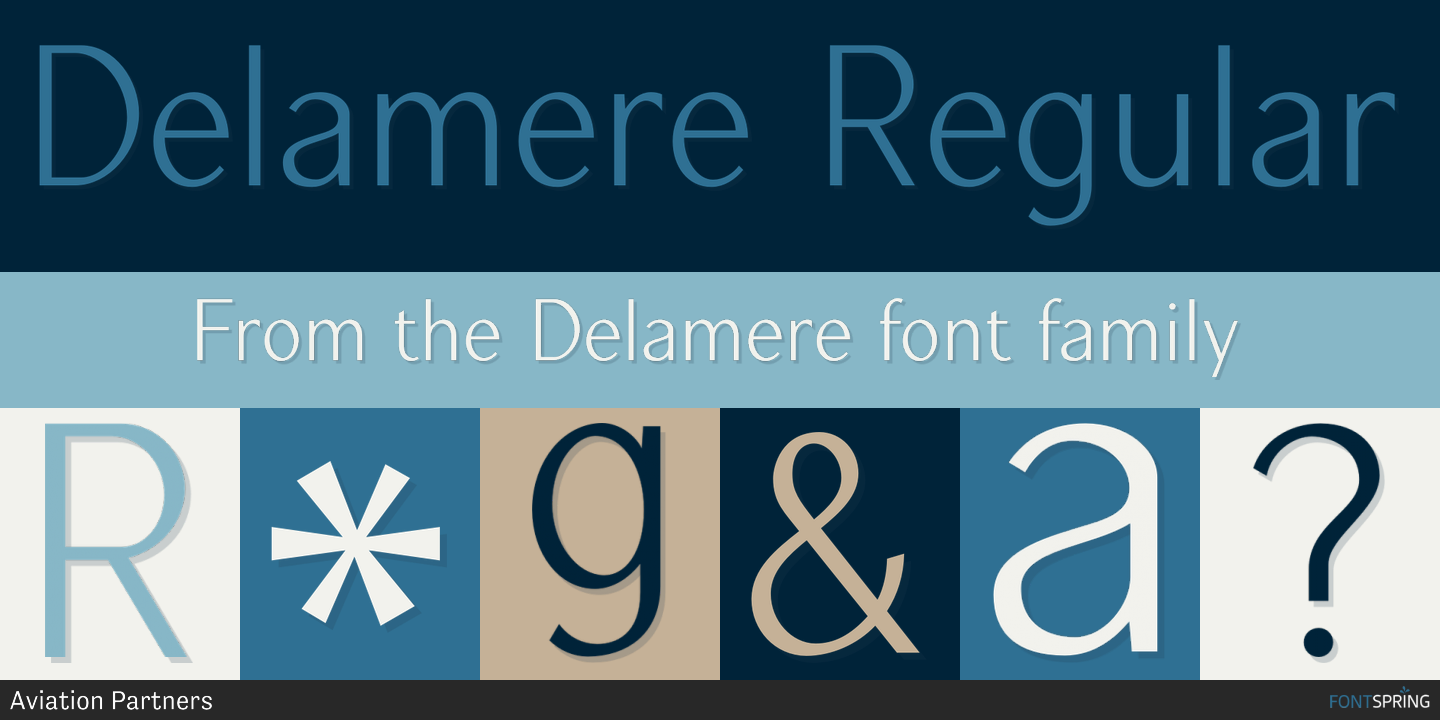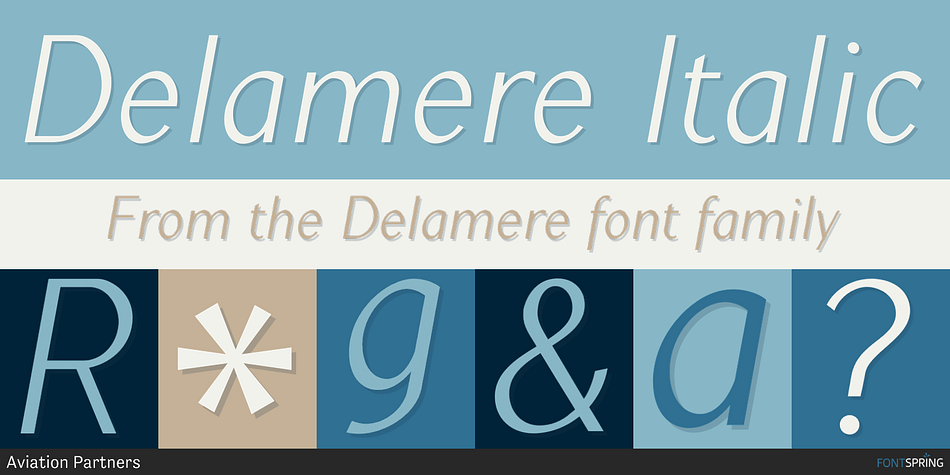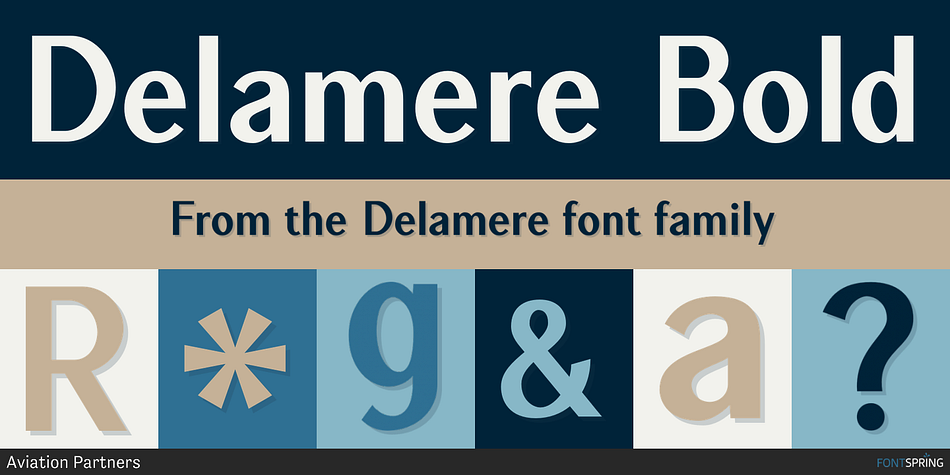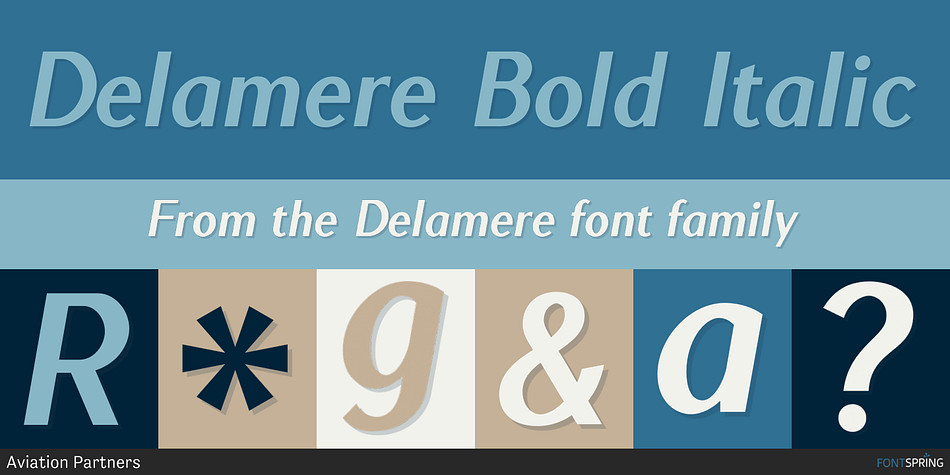
Delamere is a sans serif font family. This typeface has four styles and was published by Aviation Partners.
Delamere uses conventional sans-serif letterforms but delivered with a strong calligraphic feel.